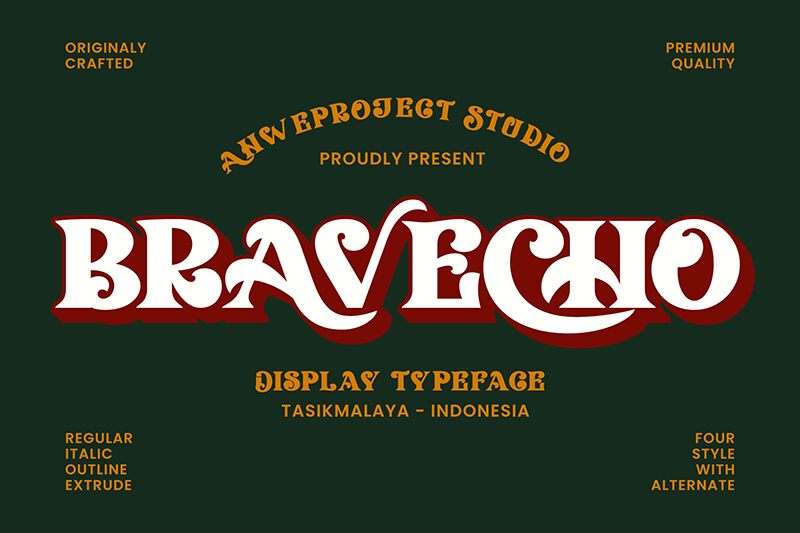
Bravecho Regular
Bravecho font by Ahweproject is a retro display font whose unusual style will boost any lackluster design. Its characters come with heavily exaggerated ascenders and descenders, enlarging the proportions as a whole which makes their appearance eyecatching and attention-grabbing. Other elements such as ink traps, thick strokes, sharp corners, and minute curves make all the difference in elevating any project’s visual appeal.